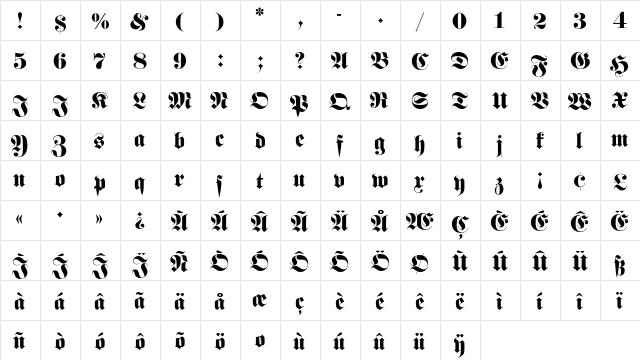
FrakturEF Bold
Design Context for FrakturEF Typeface
FrakturEF channels the dramatic heritage of Fraktur and Gothic scripts, bringing a sense of historical gravitas to any design. Its bold stroke weight gives it real presence on the page.
A natural fit for music packaging, gothic editorial design, and any project that needs historical weight.
Font Pairing: Pair with a clean neutral sans-serif for body copy to let FrakturEF's character lead without overwhelming the composition.
Pro Tip: Reserve FrakturEF for display and logo use — pair it with a clean sans-serif for body copy to prevent the composition from feeling oppressive.